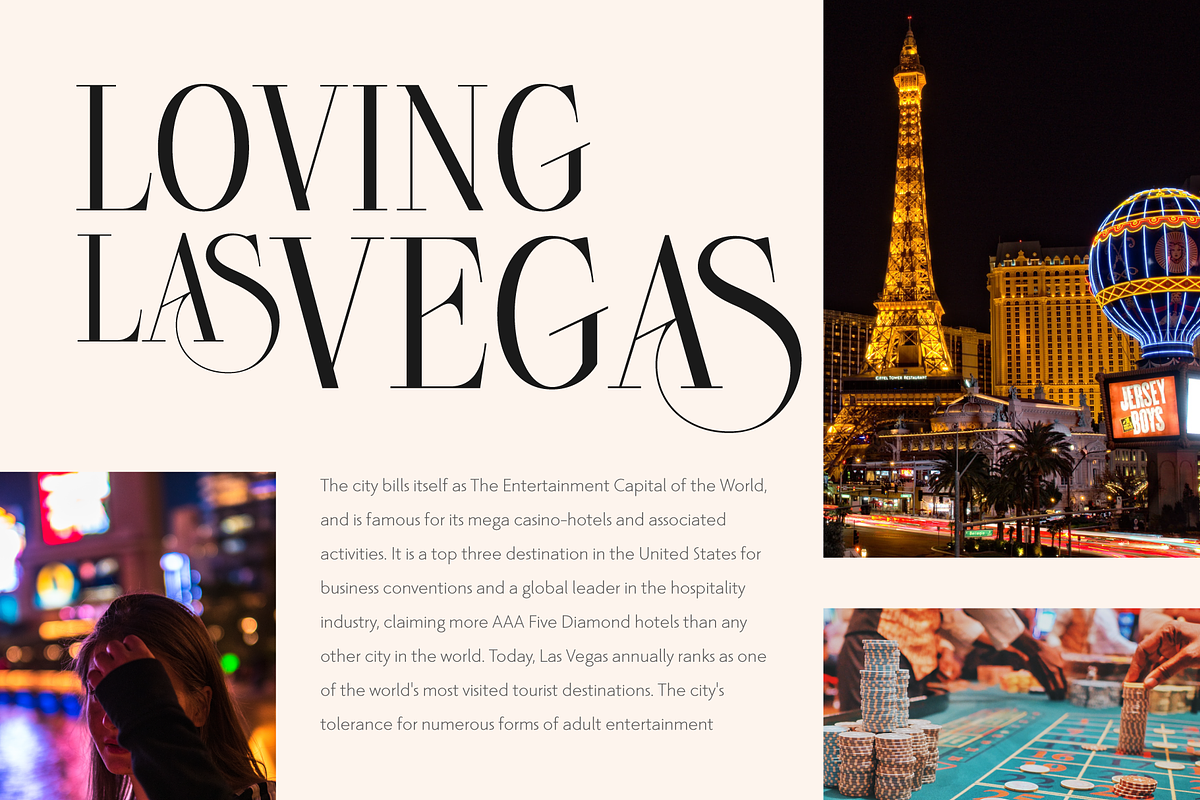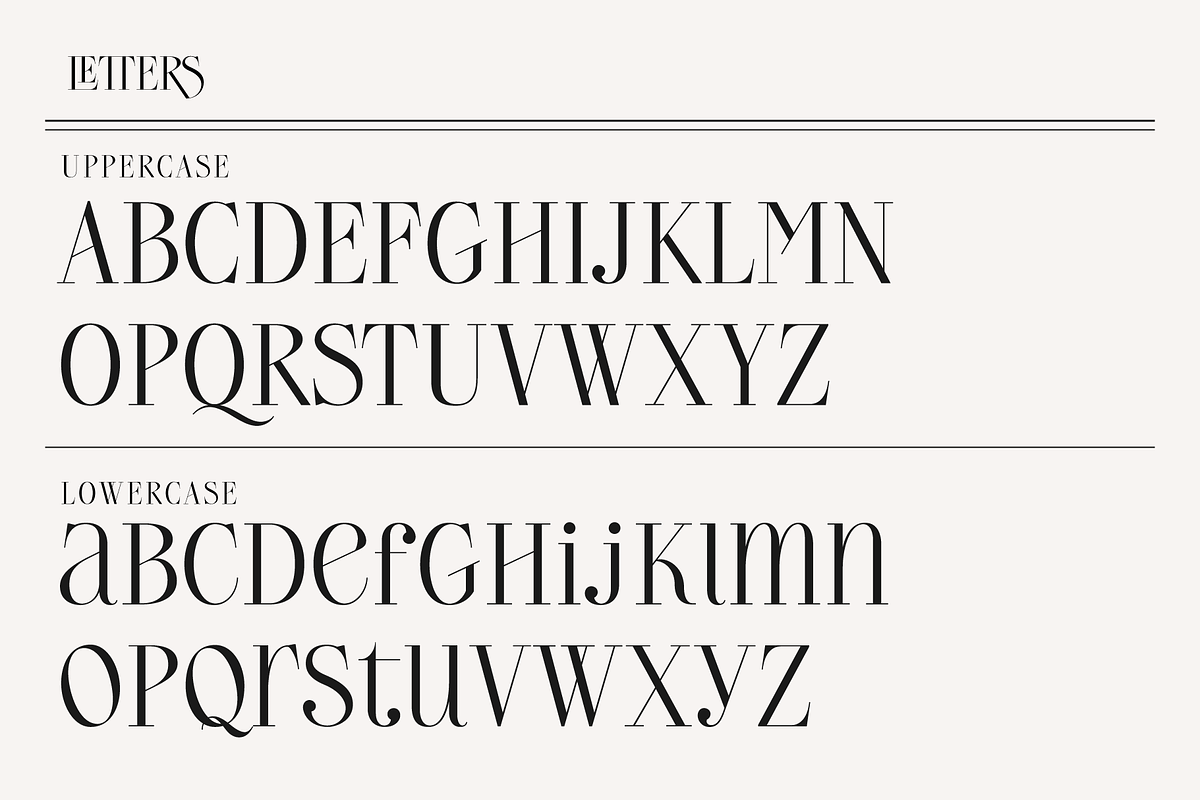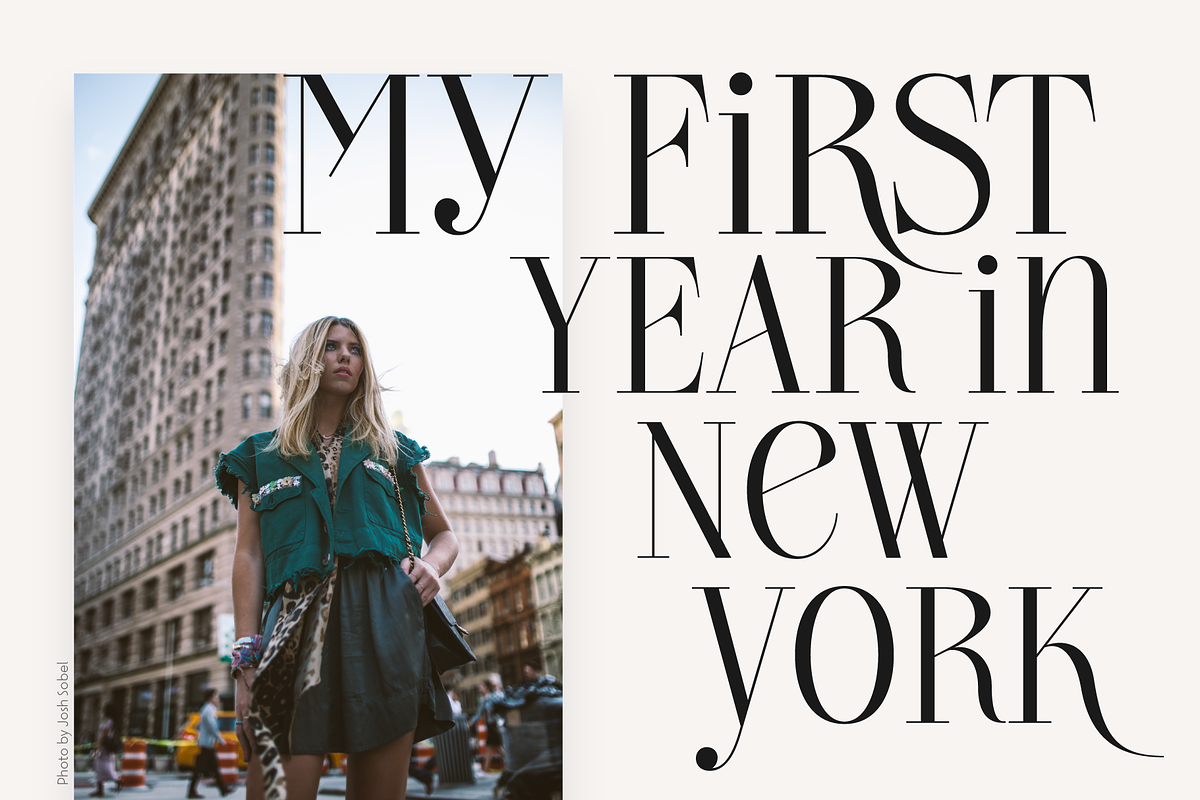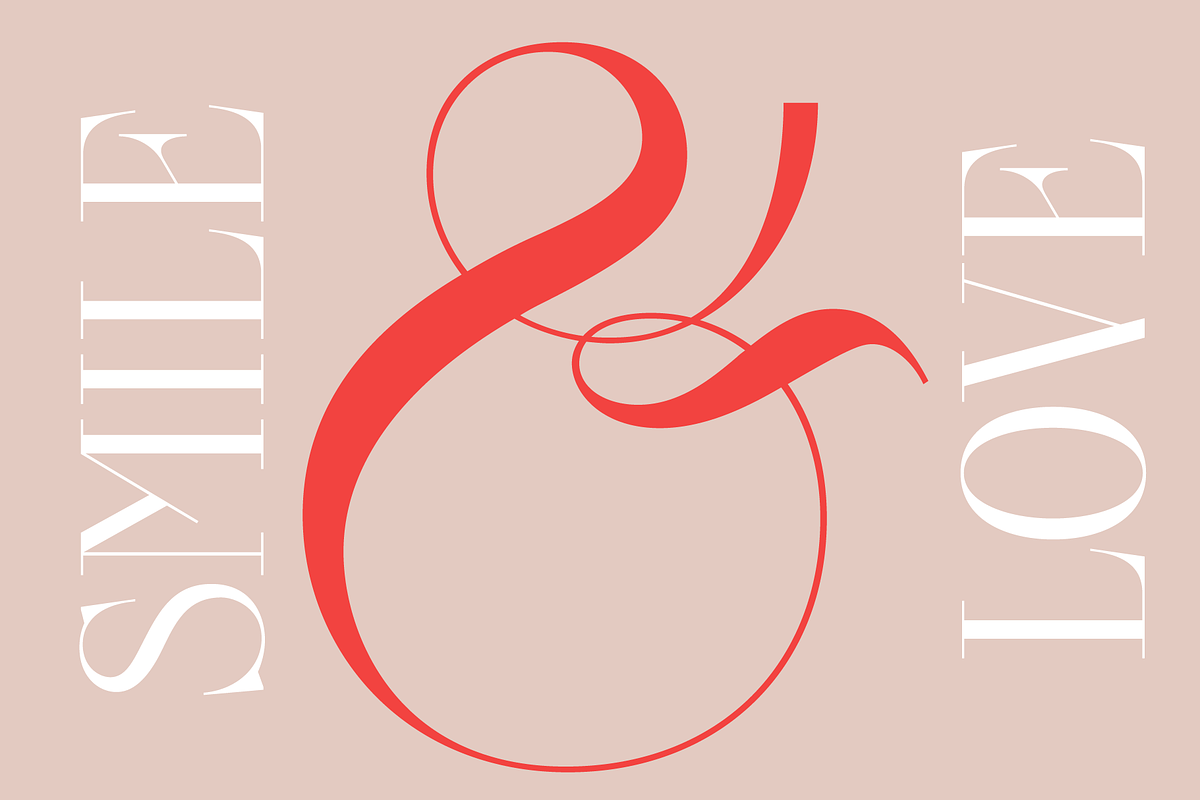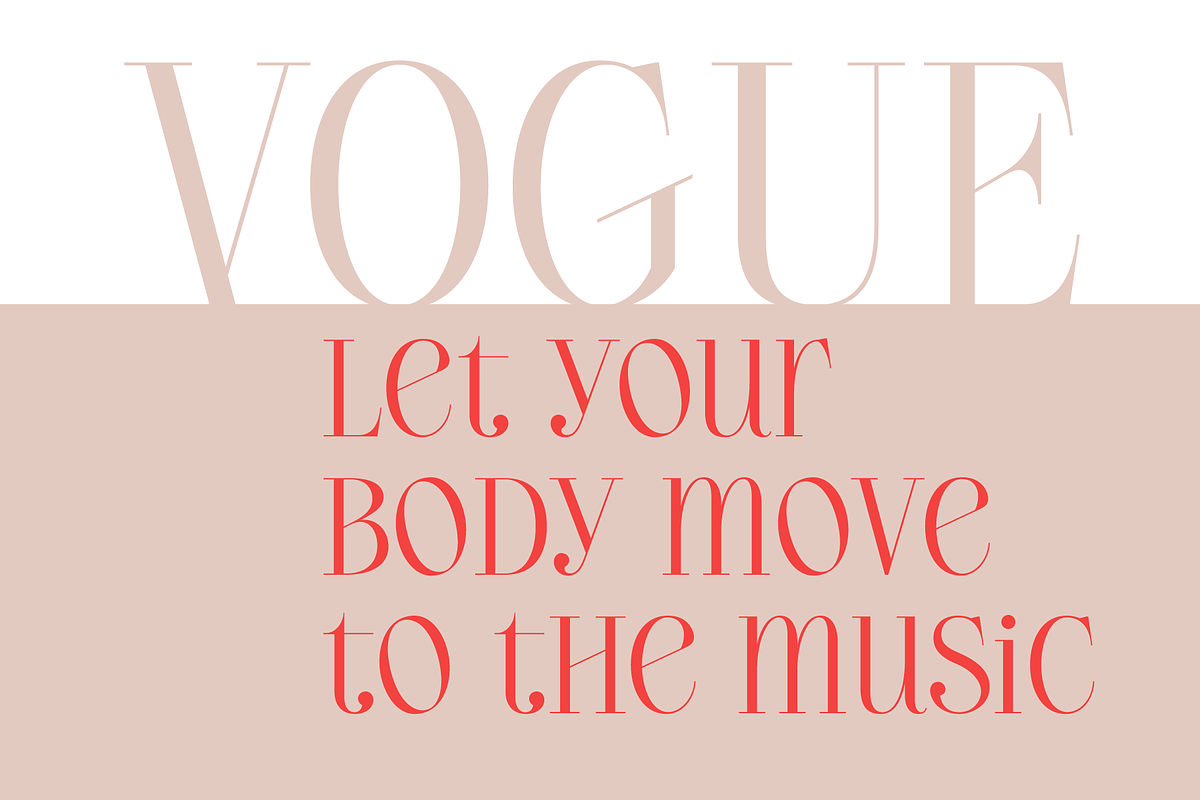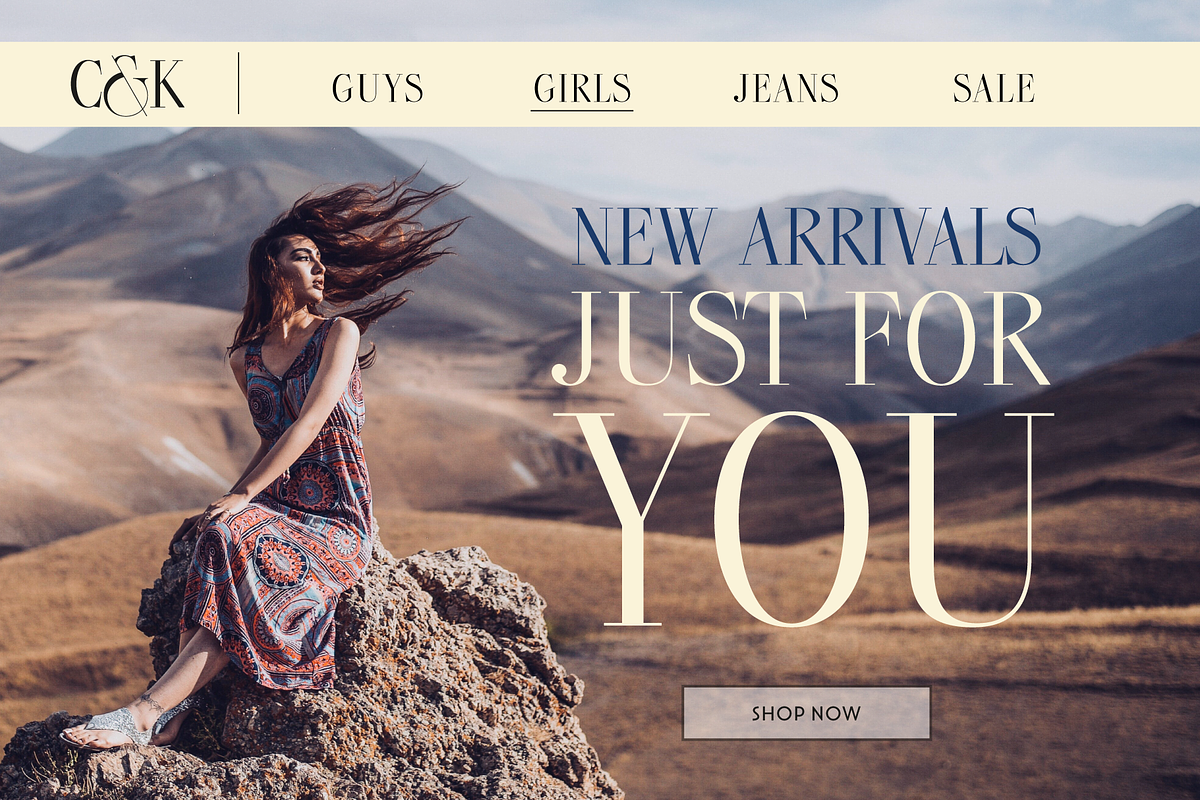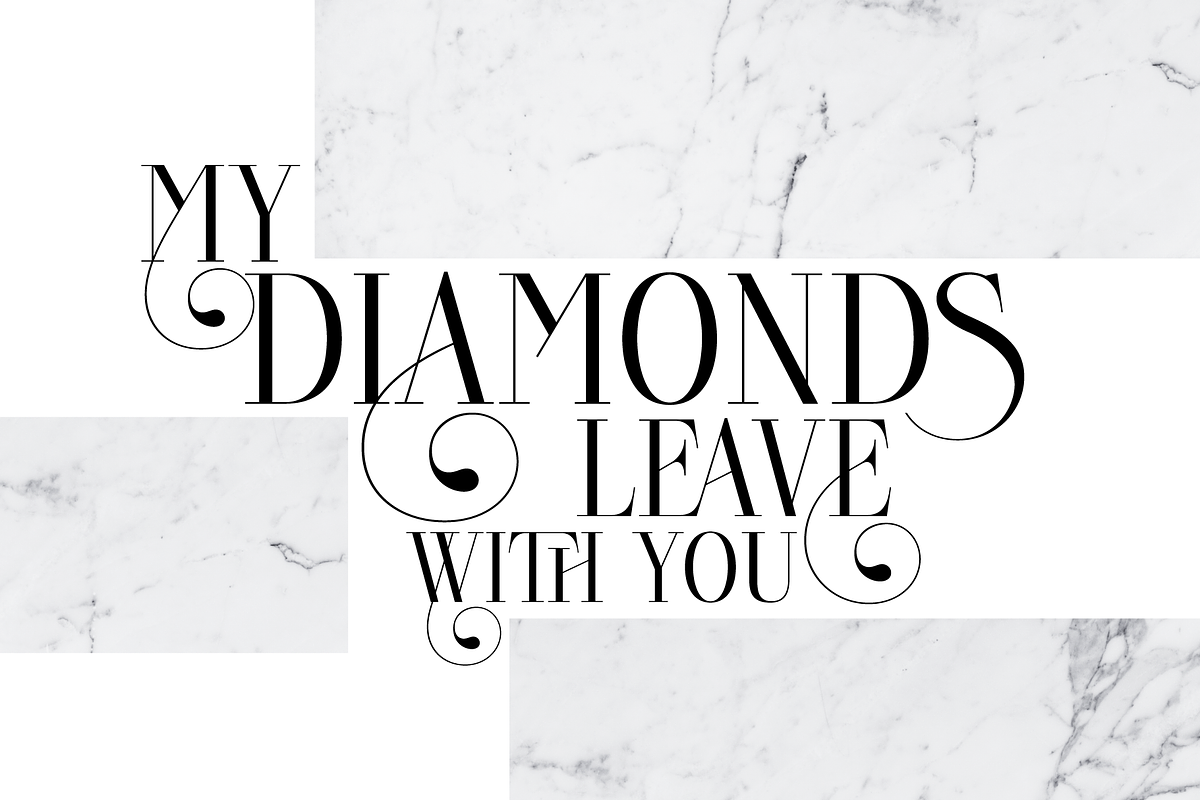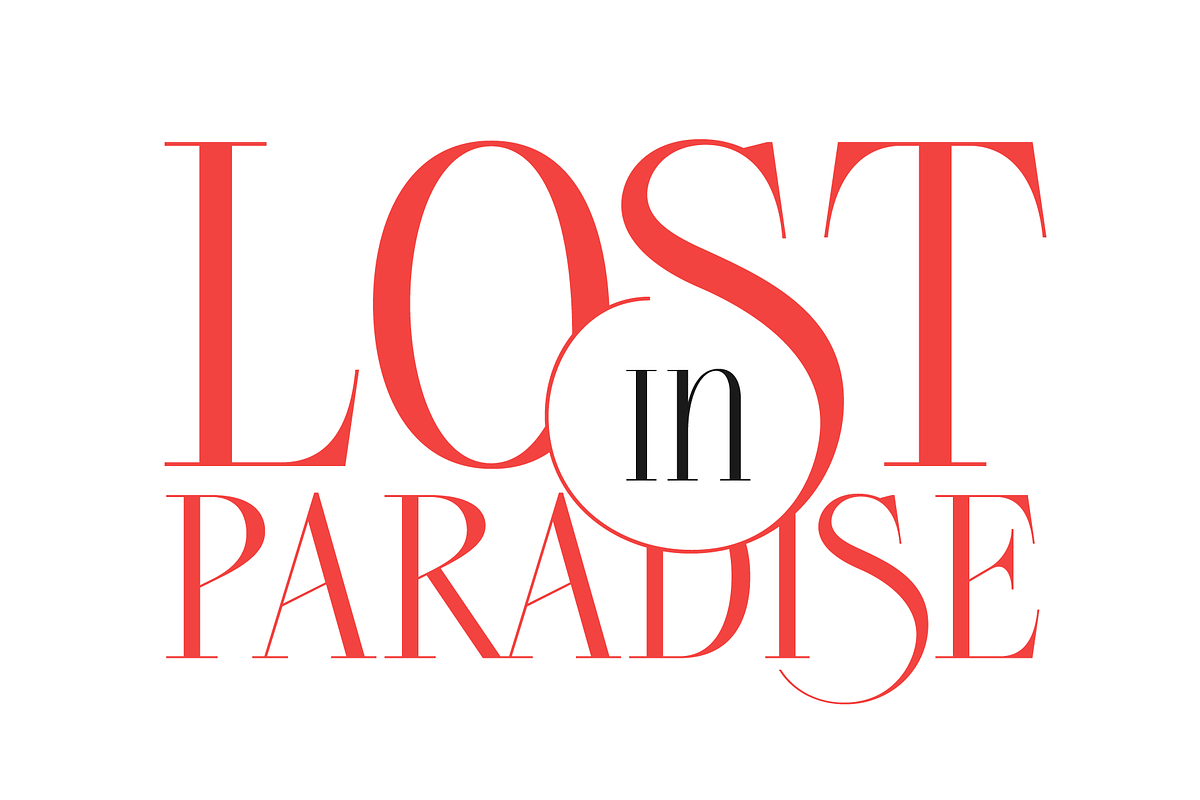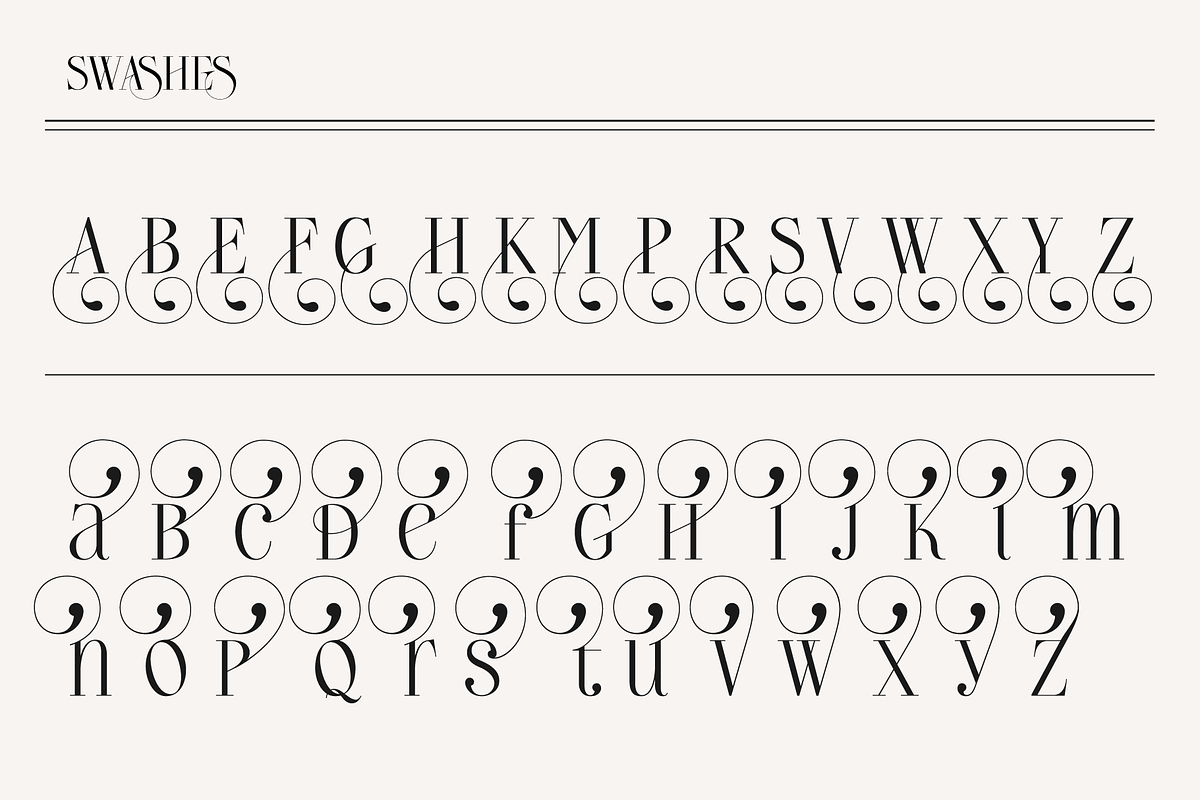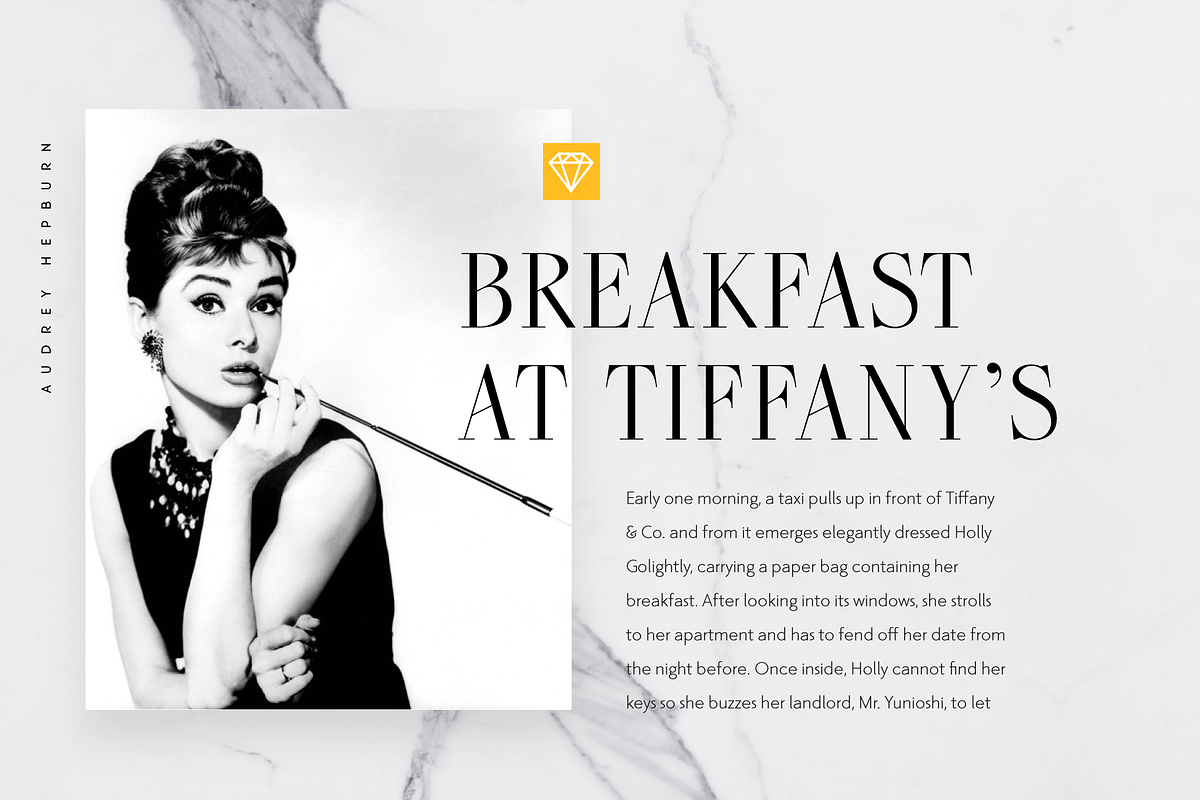
Serafina - Elegant Serif
Serafina is an elegant serif typeface inspired by 18th-century Didone. It has mixed uppercase and lowercase letters that share the same height and allows infinite combinations to give your project a unique style. Serafina is well-suited for posters, branding, logotype, headlines, titles and editorial design. Give your project a touch of luxury and class.
- Numbers, Punctuation and Symbol
- Discretionary Ligatures
- Multi Language Support. Serafina comes packed with full multilingual support, ensuring that your typography remains impeccable across diverse languages and regions.